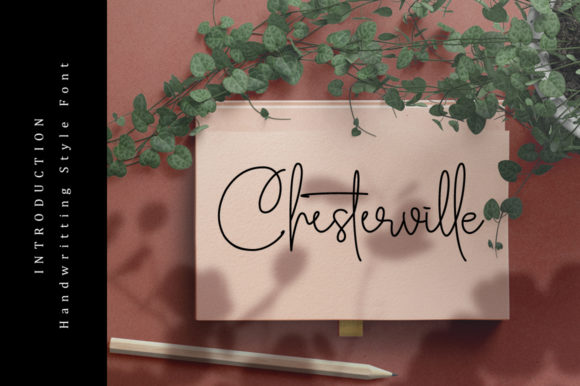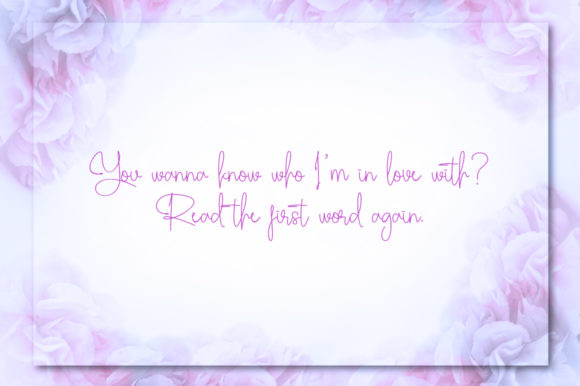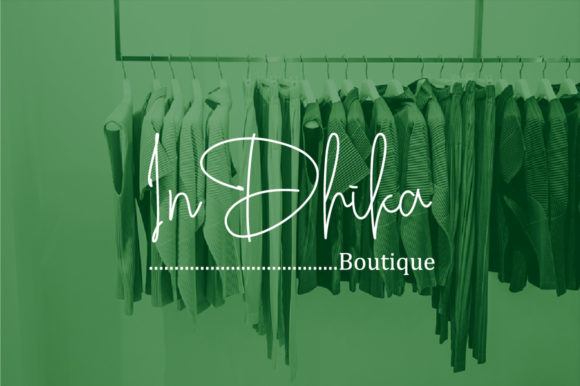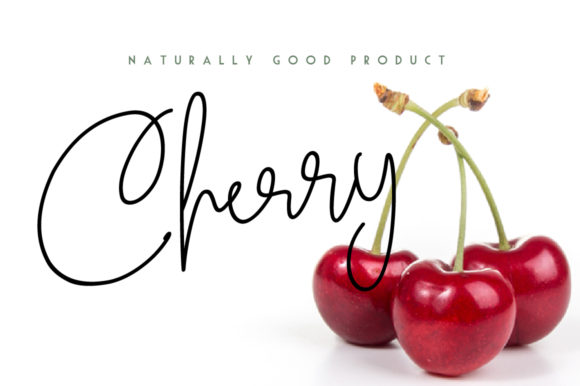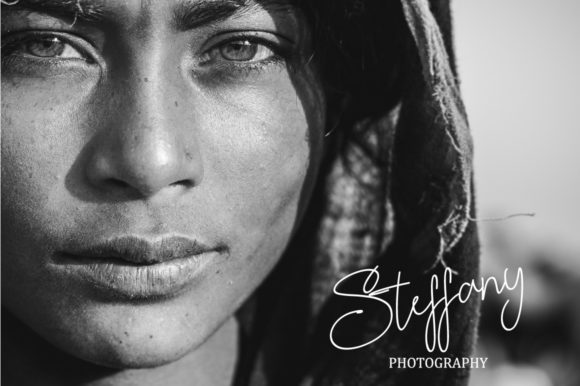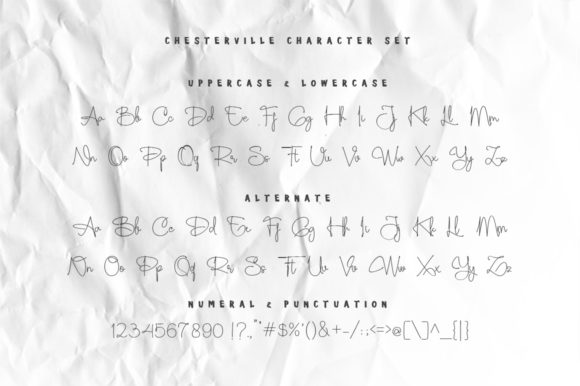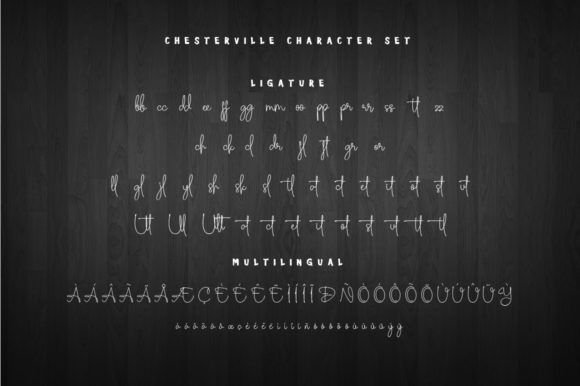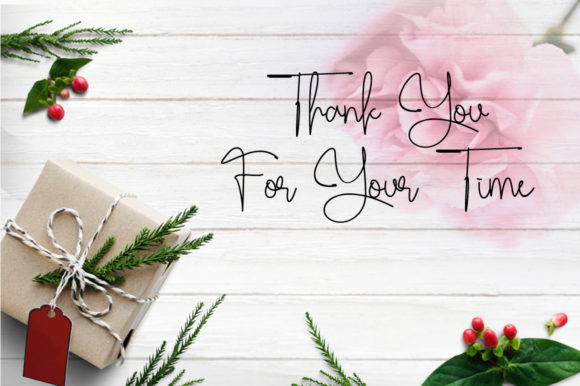
Chesterville Font
About Chesterville Font
The Chesterville is an elegant handwritten font. It has an attractive look which can be used for branding, logos, invitations, quotes, blogs, and much more!